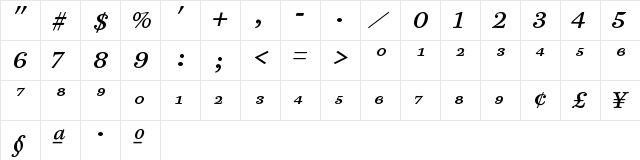
PB6TTP-ItalicFrac Regular
Design Context for PB6TTP-ItalicFrac Typeface
PB6TTP-ItalicFrac takes a measured approach to typography — its balanced proportions and neutral character make it a reliable workhorse for both digital and print work. Its italic angle brings a sense of urgency and motion to the letterforms.
Pro Tip: Use PB6TTP-ItalicFrac for emphasis, pull quotes, and subheadings where its slanted energy can add rhythm to the layout.